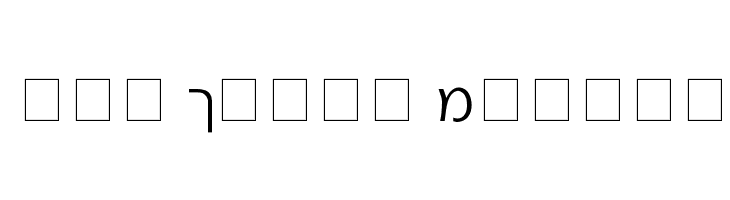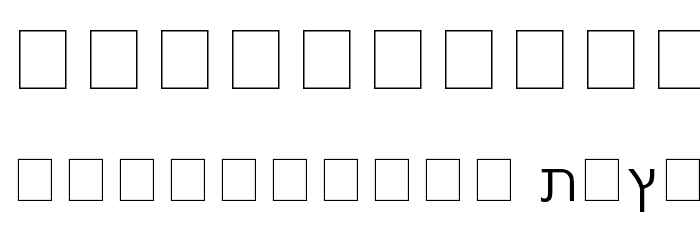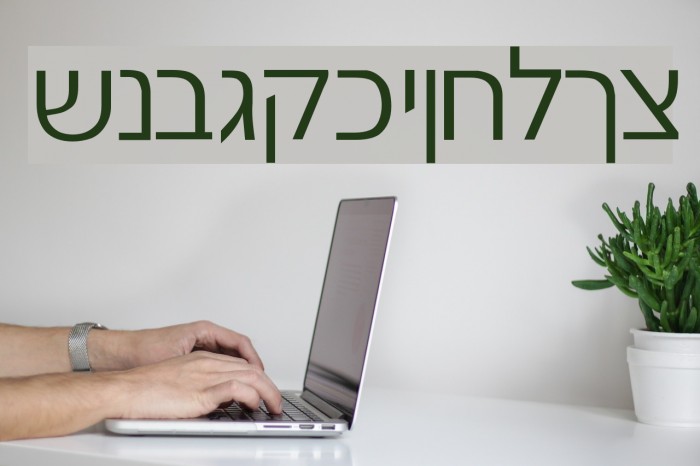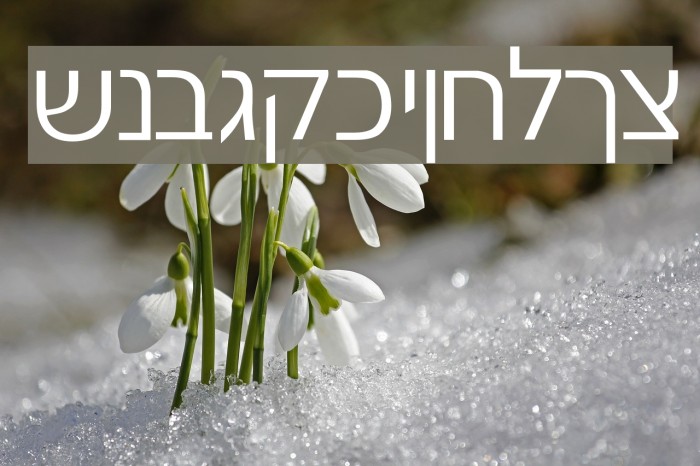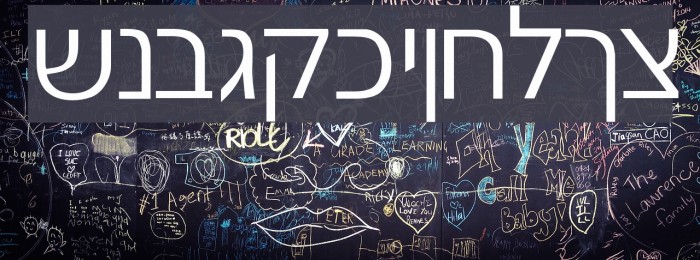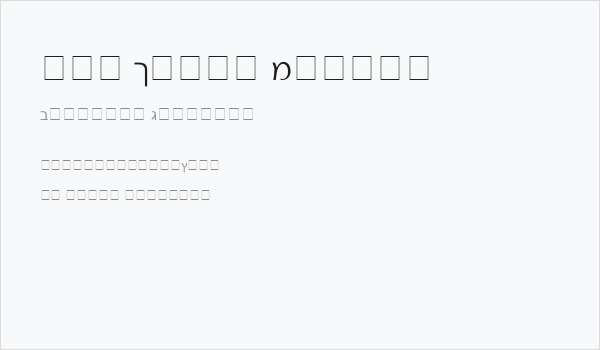
Gad Light Normal Font
Gad Light Normal Description
This font features a clean and modern design with a focus on simplicity and readability. The characters are evenly spaced, providing a balanced and harmonious appearance. The strokes are consistent in weight, contributing to a uniform look across all characters. The font's light weight and normal width make it suitable for a variety of applications, from digital interfaces to print media. It maintains a professional and contemporary aesthetic, making it versatile for different design needs.